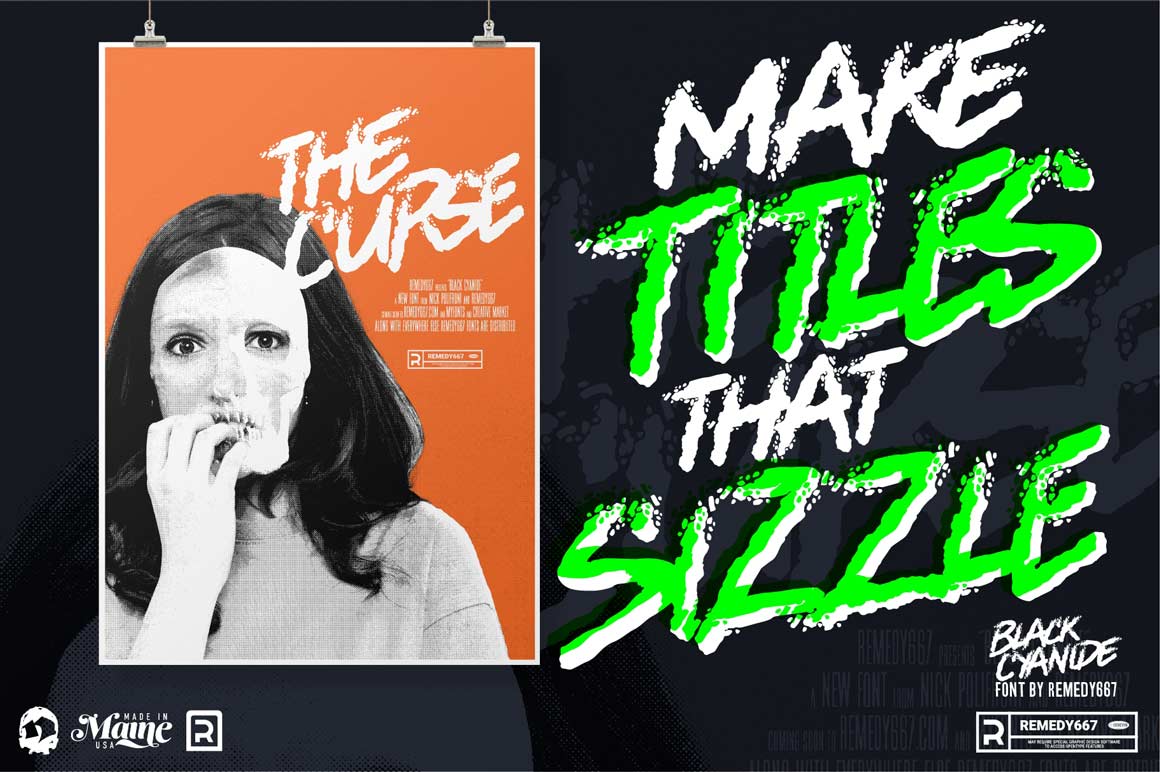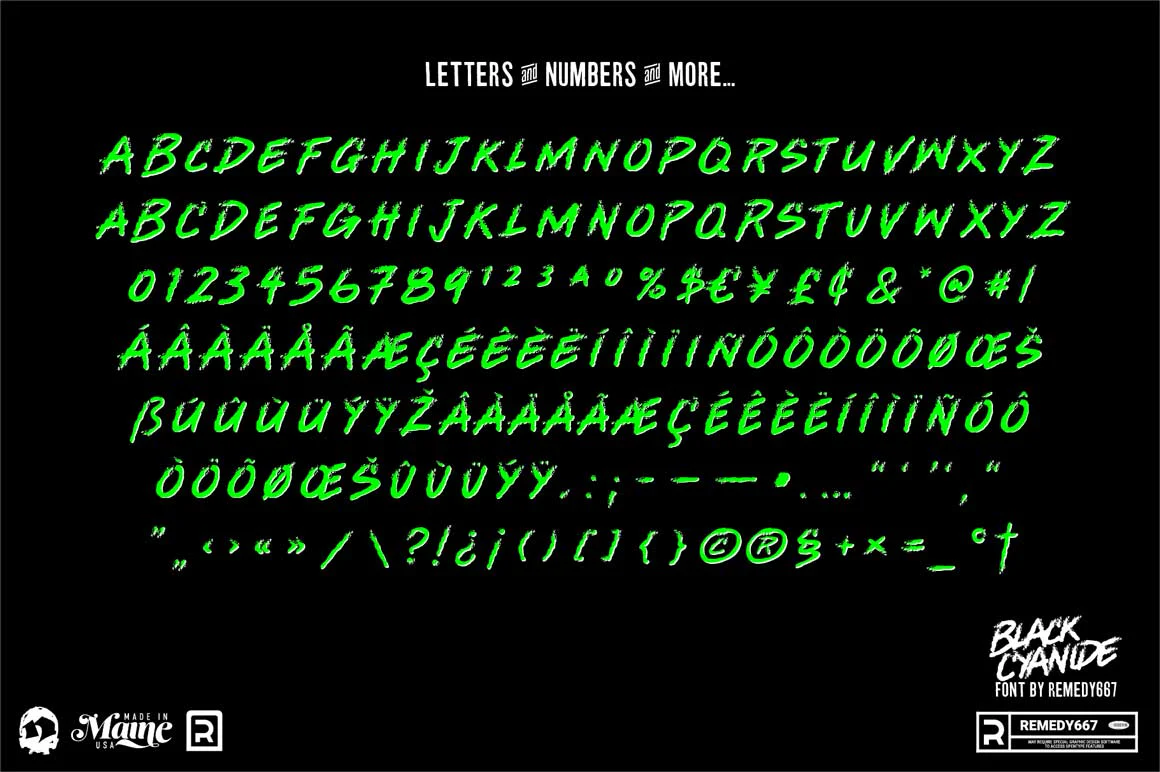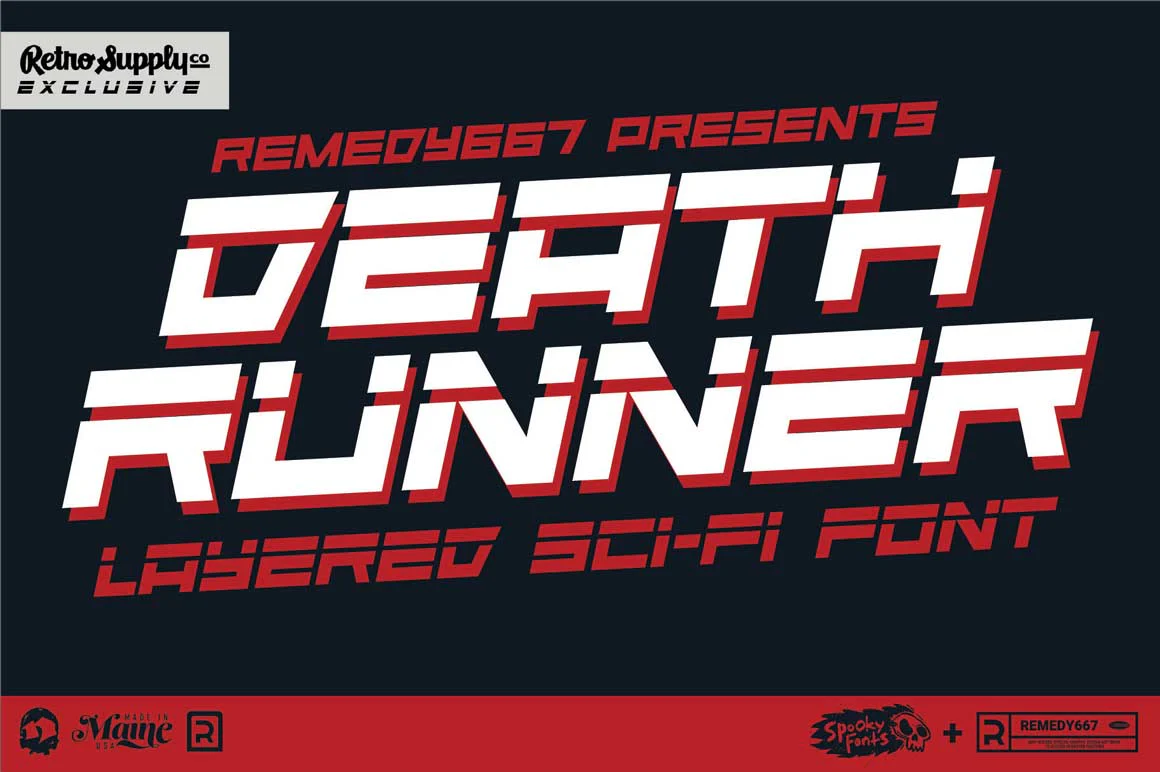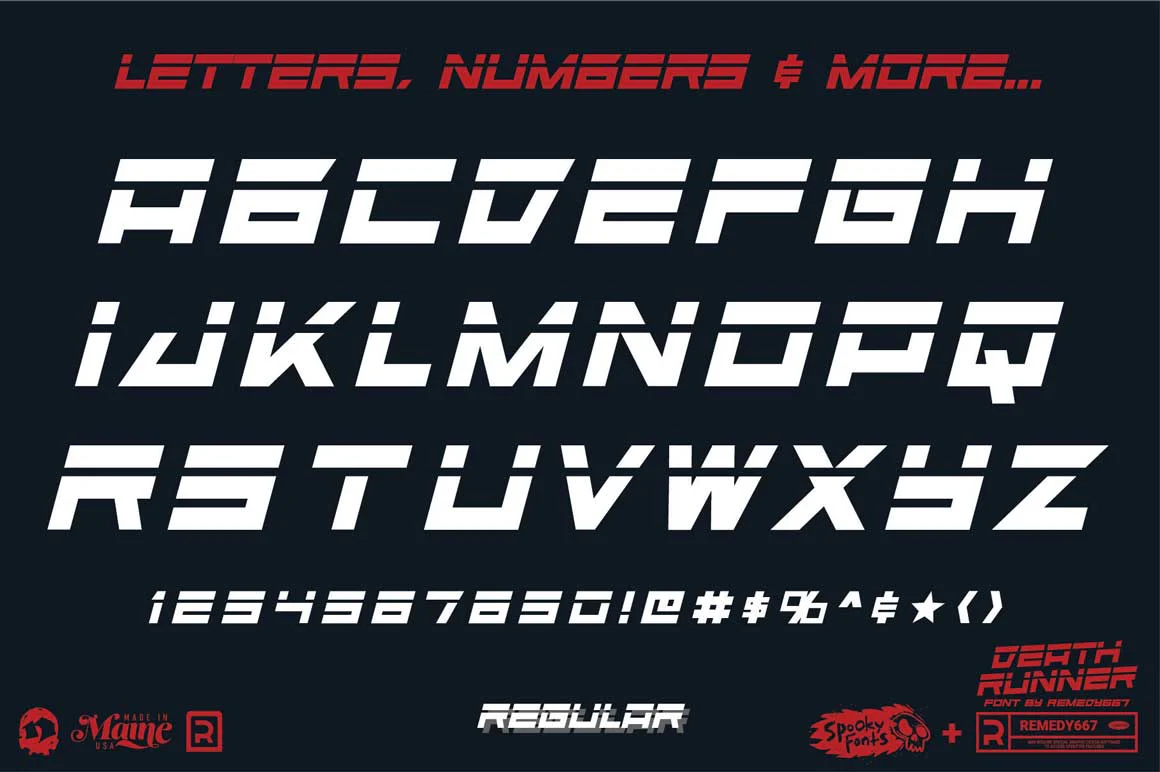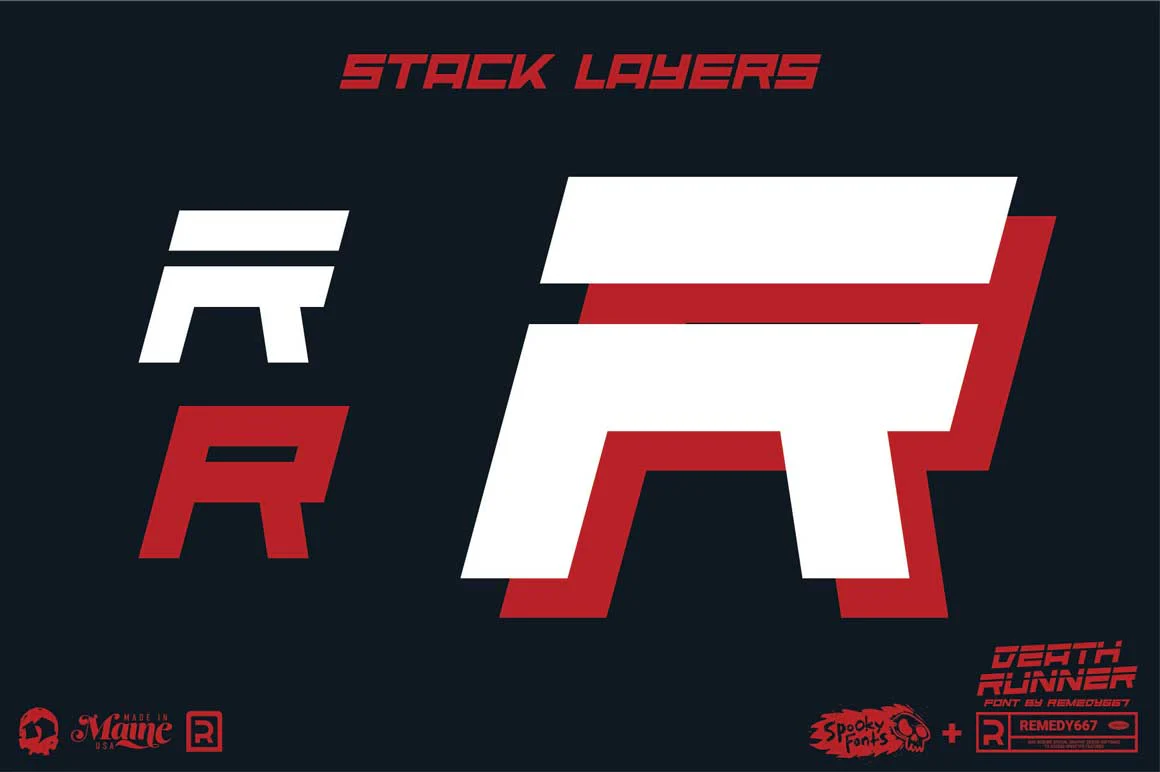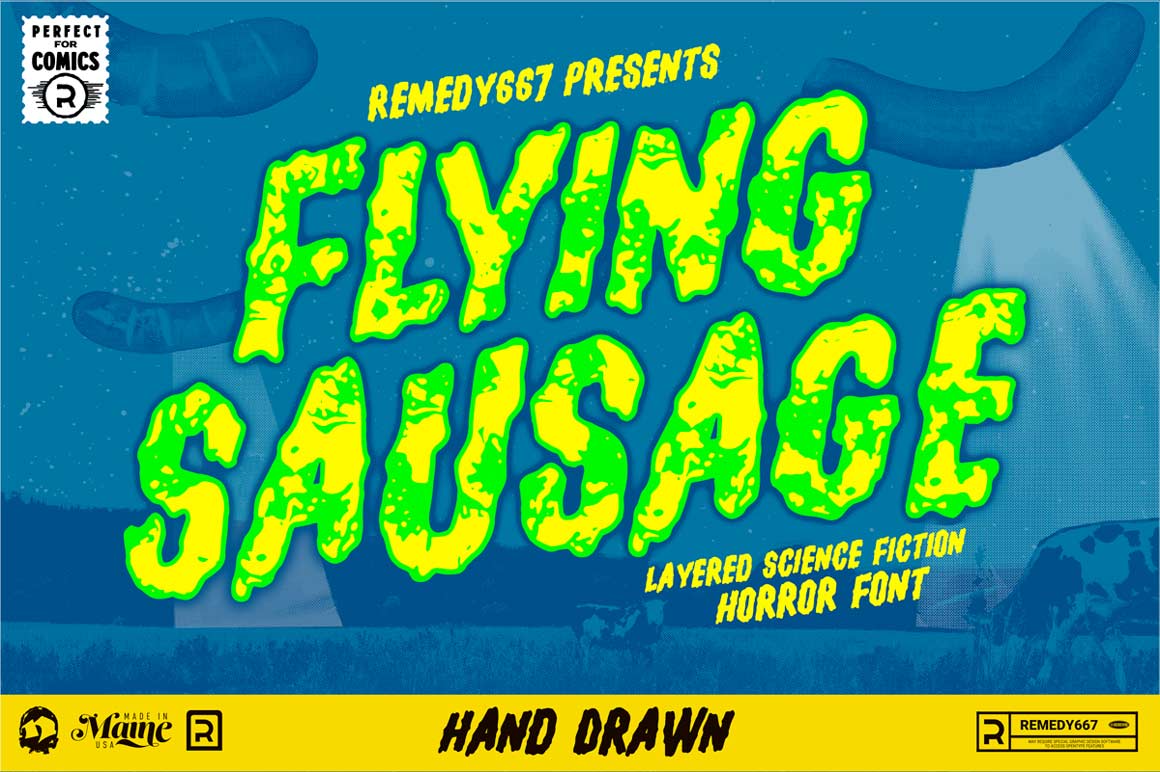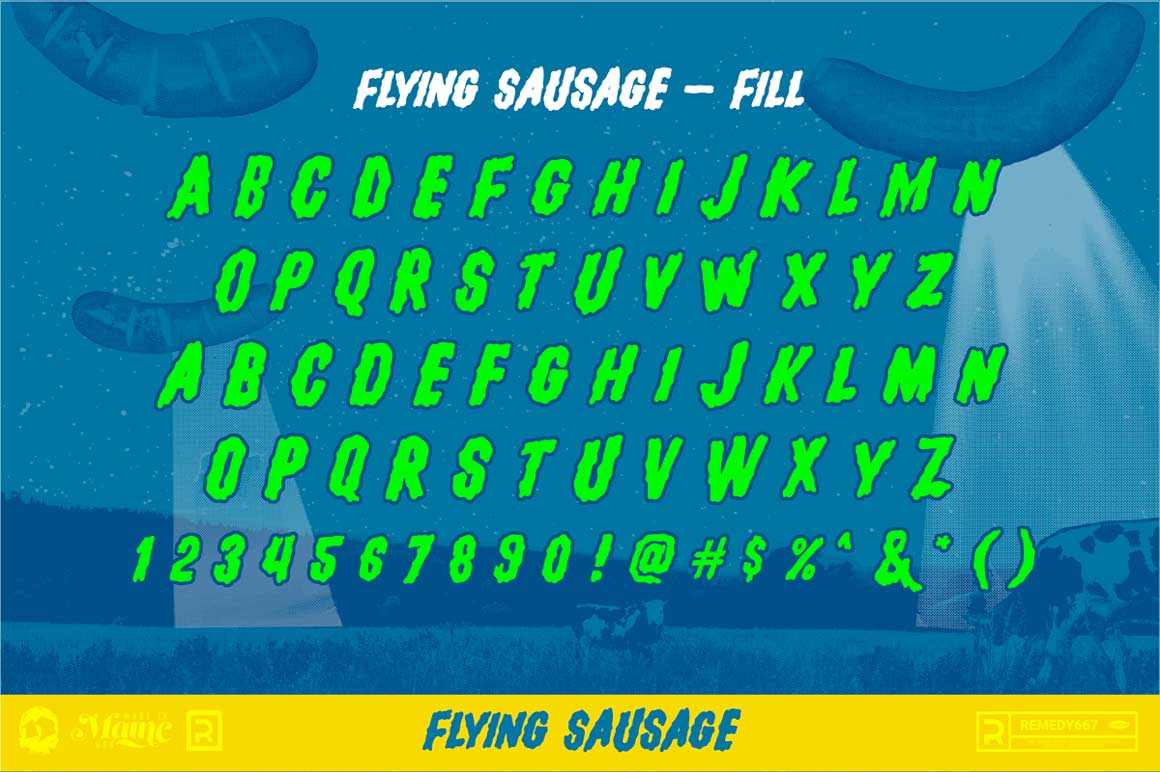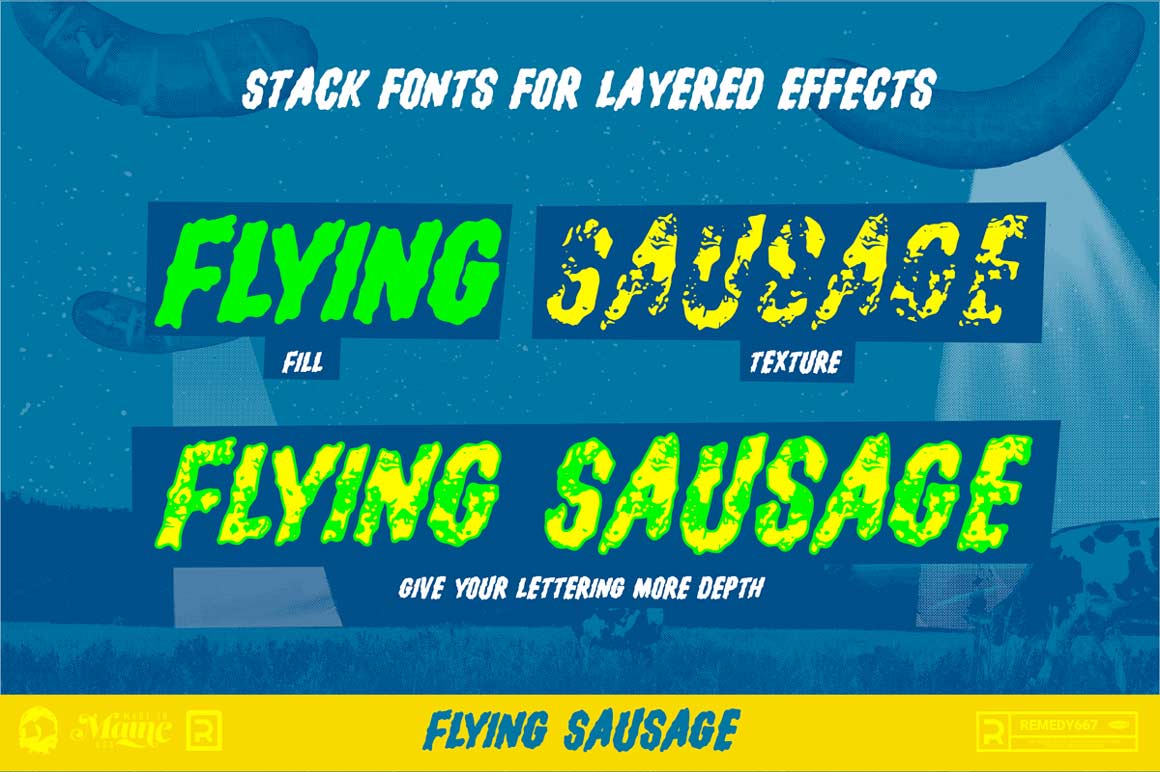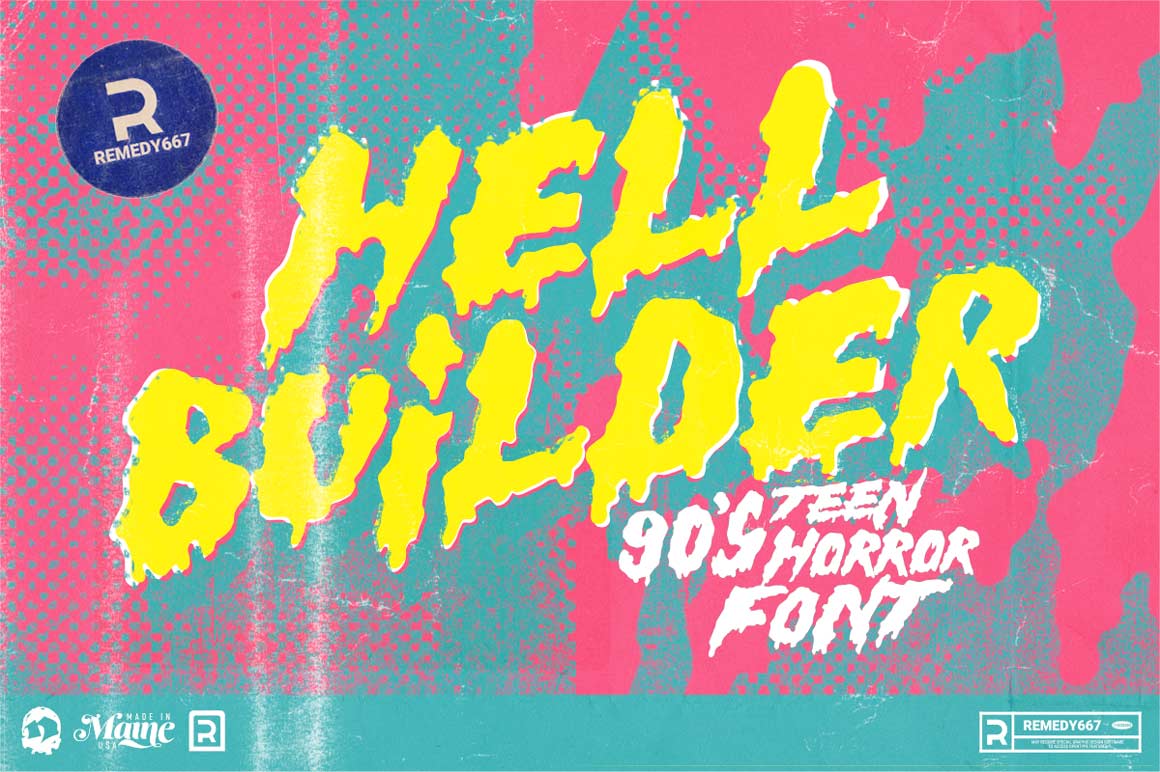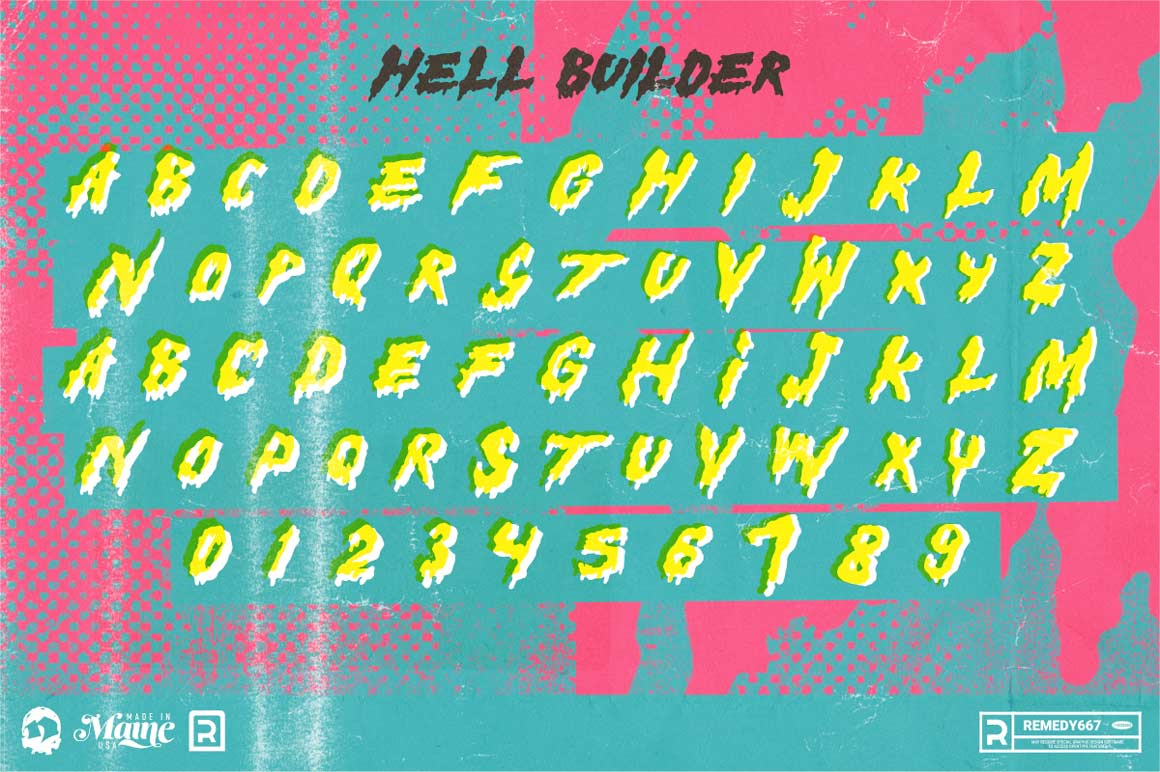
An Out-of-this-World Font Collection That Pays Homage to Classic Sci-Fi Typography
Drawing inspiration from classic science fiction like Alien and The Thing from Another World, this bundle brings to life the terrifying thrills of body snatching and alien invasions the genre is known for.
Crafted with precision by Remedy 667, specialists in horror and sci-fi typography, each font in this bundle drips with character and authenticity.
- Extensive Sci-Fi Font Selection. Dive into a collection of 7 surreal and terrifying fonts hitting on a wide spectrum of styles and tones. Including Death Runner, a RetroSupply Co. exclusive.
- Multilingual Support. Crafted for global use, these fonts cater to Standard English and extended Latin characters. This ensures compatibility with Western, Central, and South European languages, incorporating both accented vowels and distinct consonants.
- Diverse Character Set. Beyond the basics, The Cosmic Horror Bundle boasts an array of special characters. From numeral and punctuation to typographic symbols and mathematical notation — we covered everything. Not to mention essential symbols like trademark and copyright.
- Versatile Use Cases. Perfectly pitched for both sci-fi and h projects. Think daring space comics, eerie movie posters, spooky packaging, or any design that craves a mind-bending, spine-tingling touch.